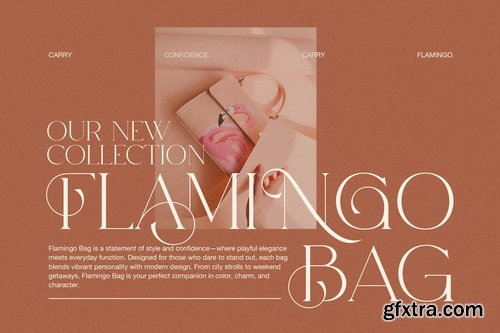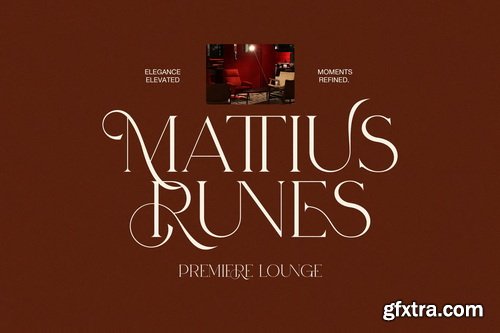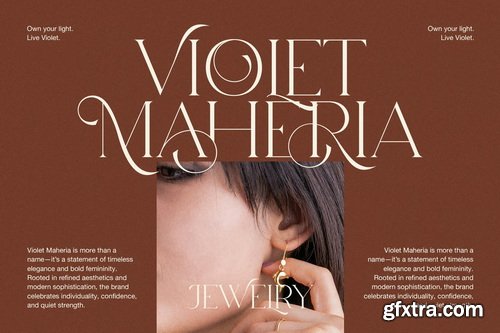
Kodam Stylish Serif Font
Kodam Stylish Serif Font is a sophisticated and modern typeface that blends refined elegance with bold design elements. Featuring sleek curves, artistic ligatures, and thoughtfully designed alternates, Kodam is a serif font that speaks style, confidence, and contemporary class. Its graceful letterforms are perfect for adding a high-end feel to your creative projects while maintaining readability and visual balance.
- Ideal for logos, branding, editorial layouts, websites, packaging, and more, Kodam brings a polished edge to any design. Its distinct character makes it especially well-suited for boutique fashion labels, upscale product packaging, beauty brands, luxury menus, and magazine covers. Whether you're crafting a minimalist logo or a visually rich campaign, Kodam gives your text a voice that’s both stylish and professional.
- With a modern serif structure that combines classic roots and creative flair, Kodam is built to shine in both print and digital formats. Its unique ligatures and alternates provide endless design possibilities, allowing for a truly custom look in every use. From elegant wedding stationery to high-impact advertisements, Kodam adapts beautifully to any design setting.
- More than just a font, Kodam is a creative tool for designers who want to make a statement. Sophisticated yet versatile, stylish yet timeless—this font is the perfect choice for bringing a luxurious, editorial touch to your next project.